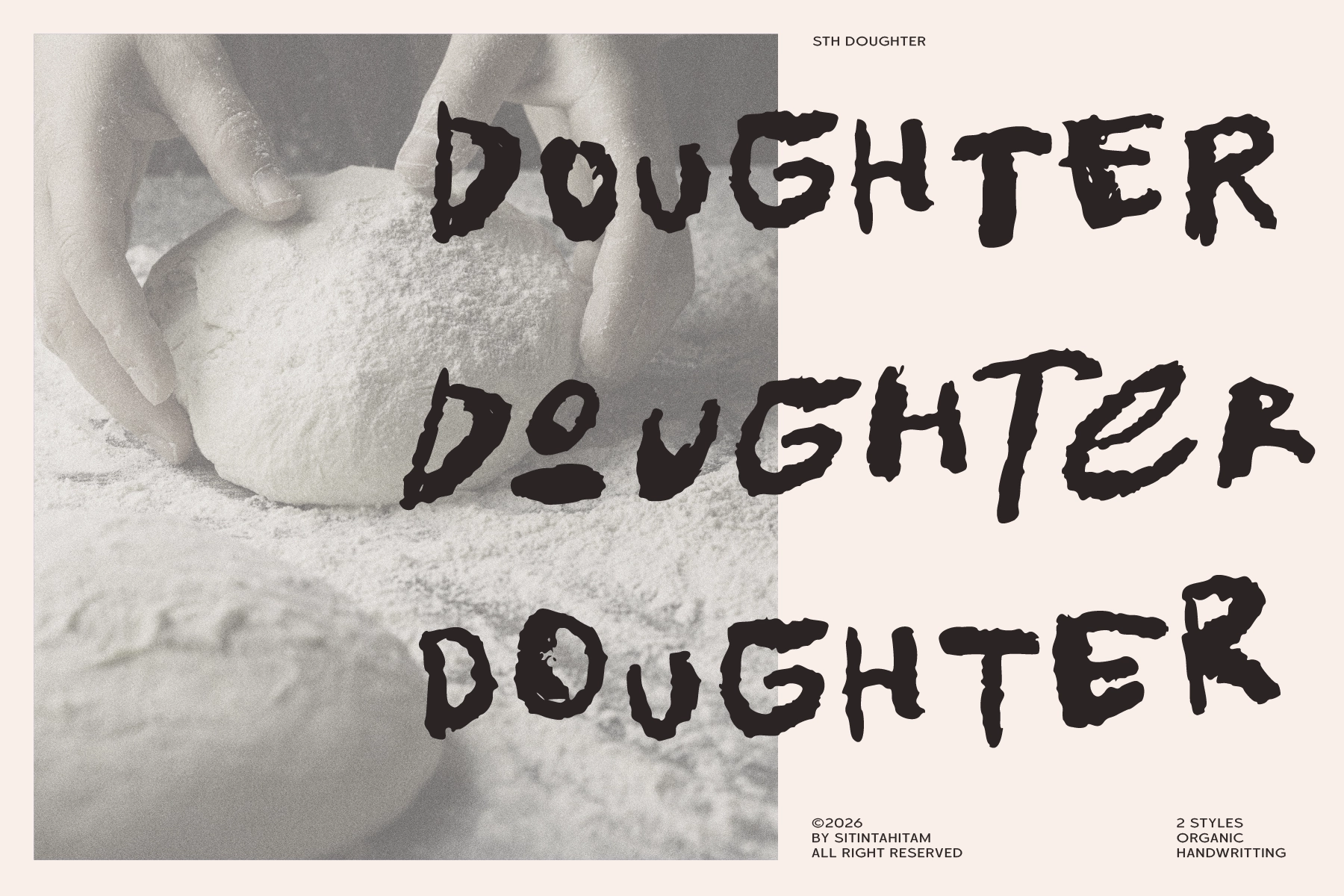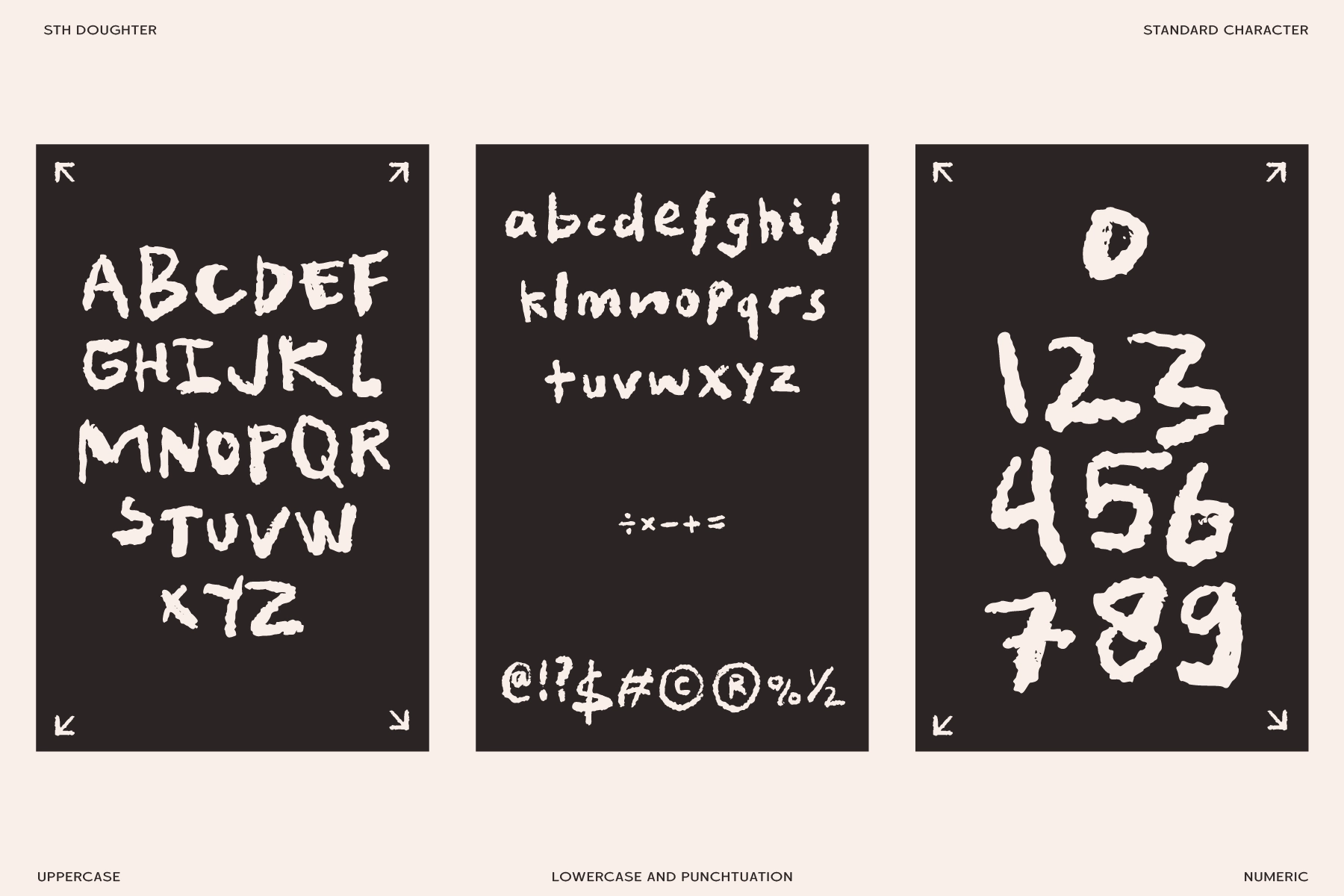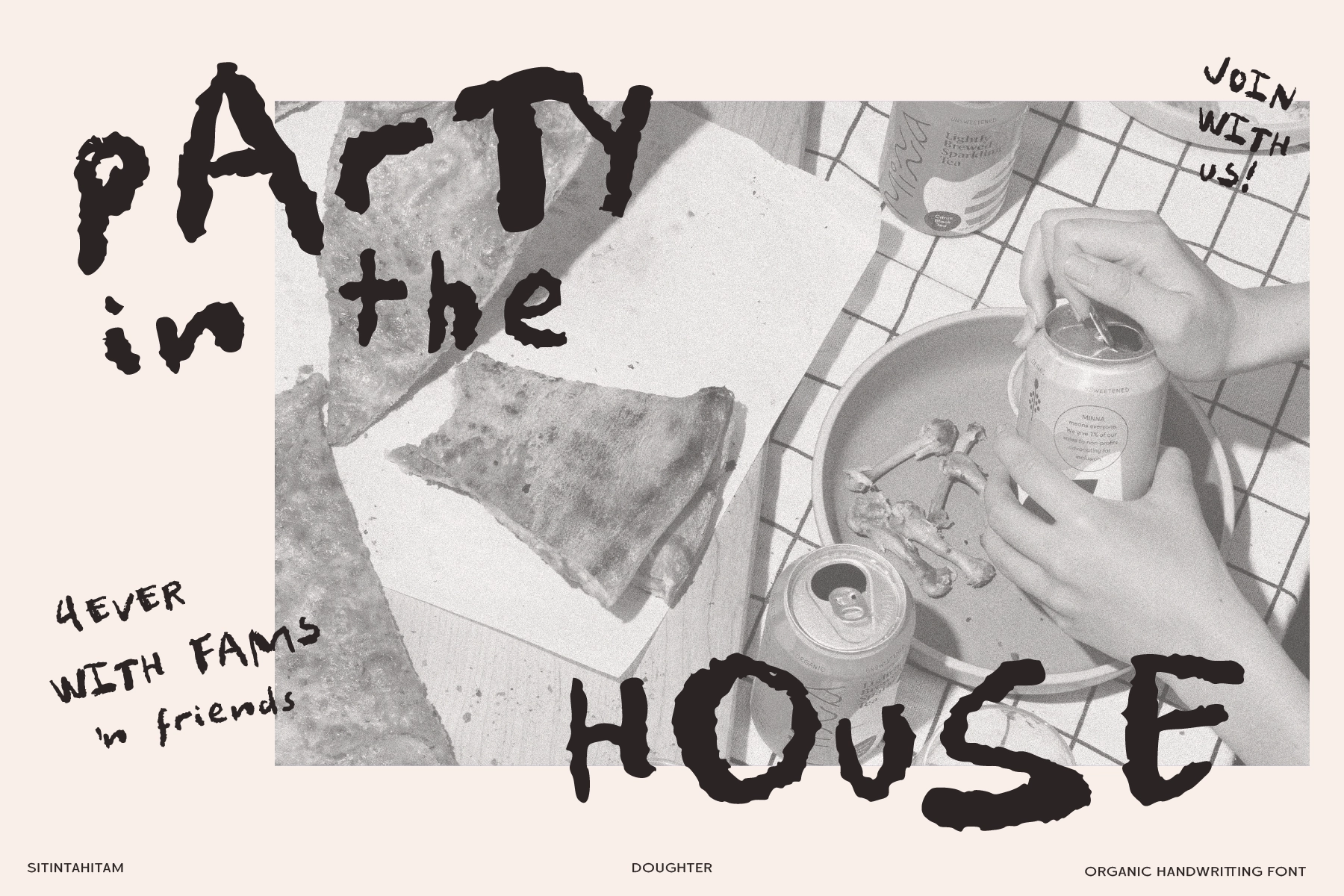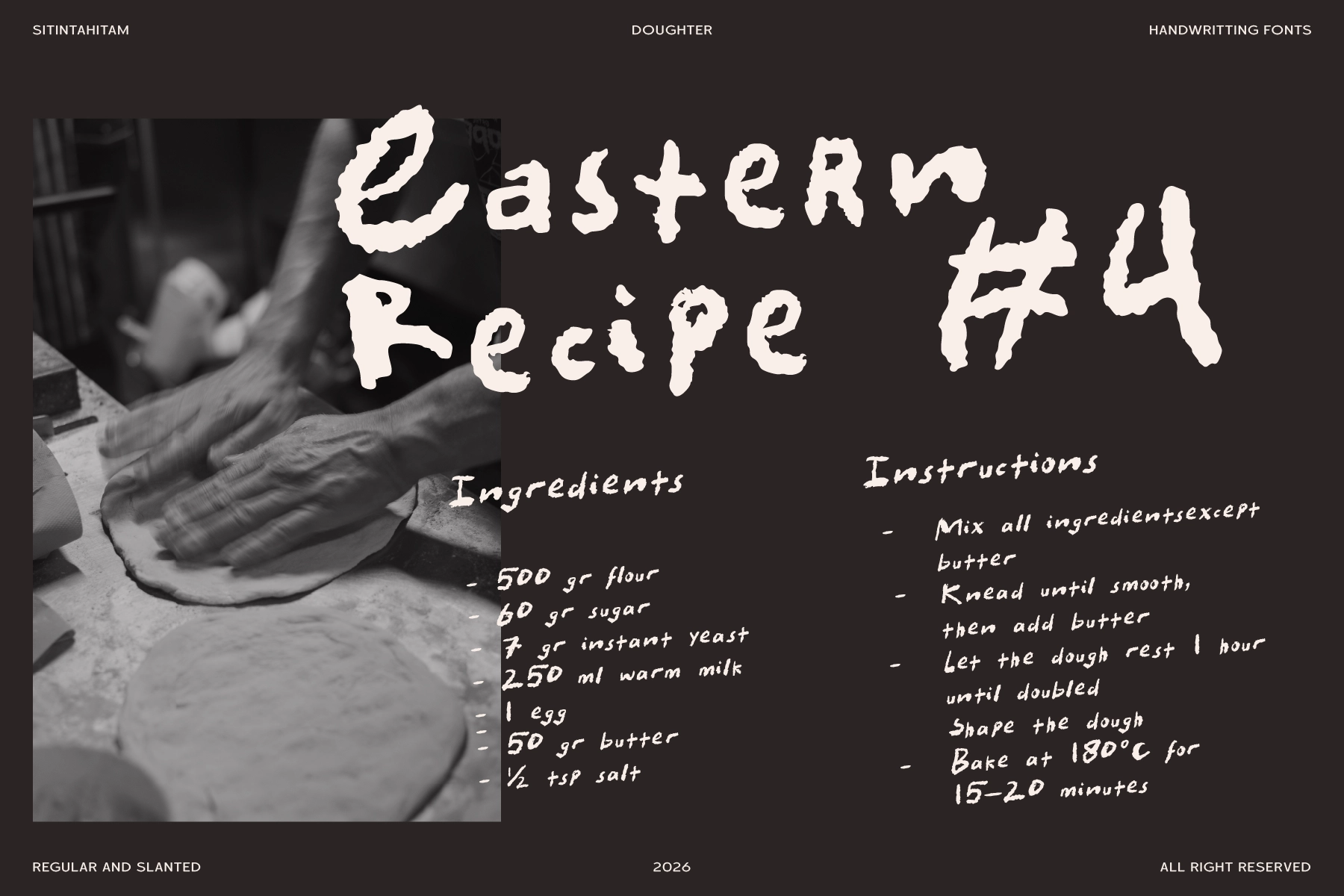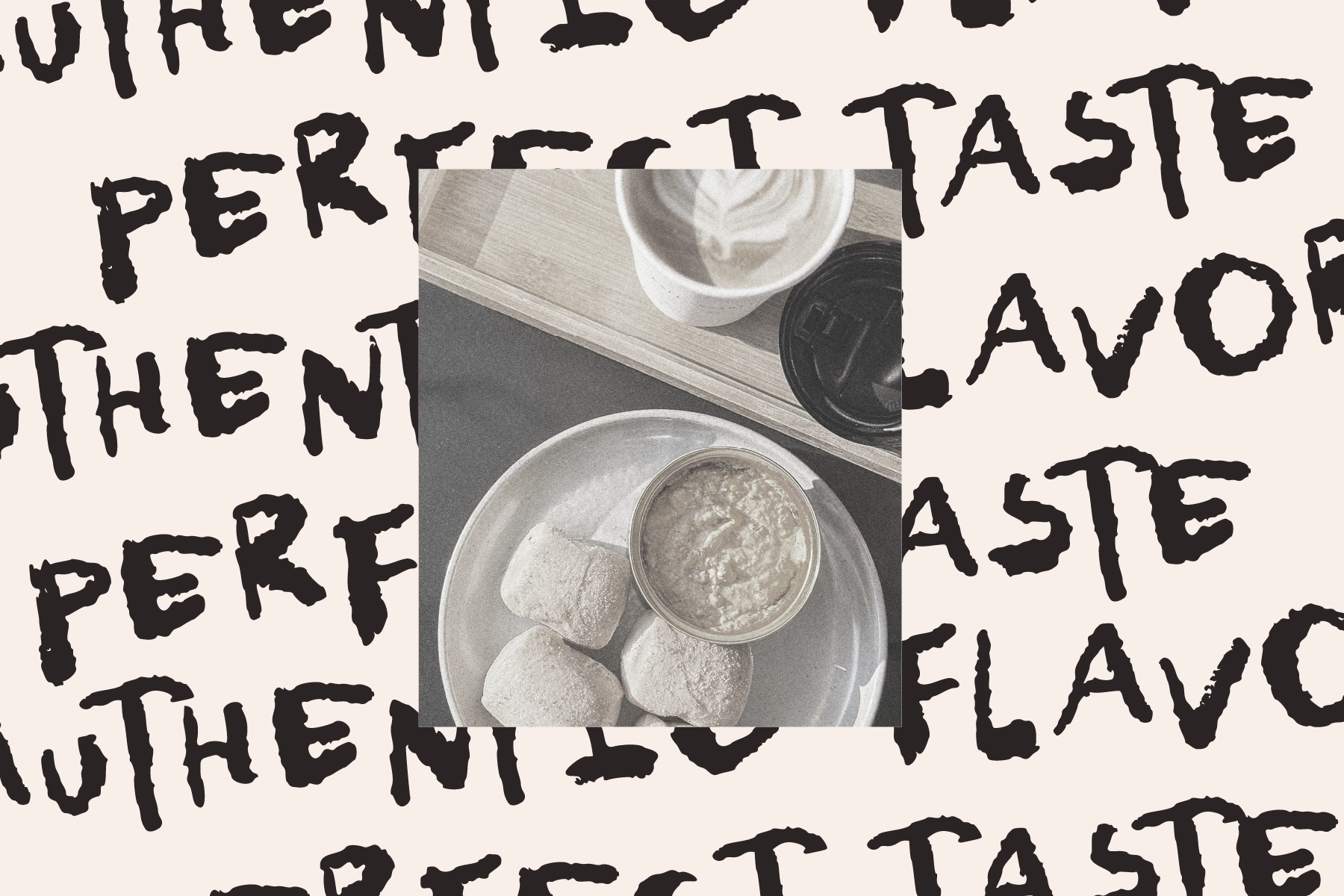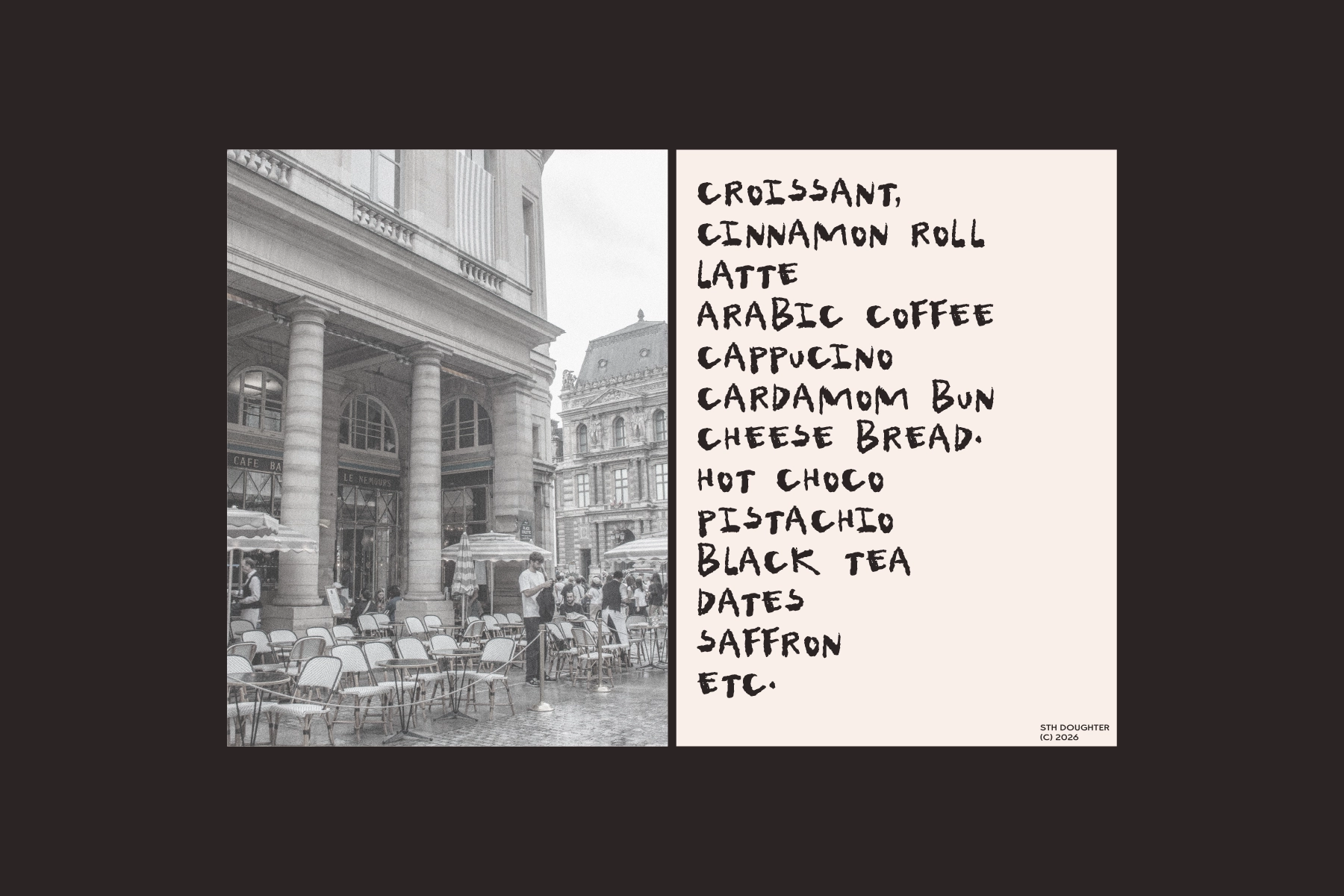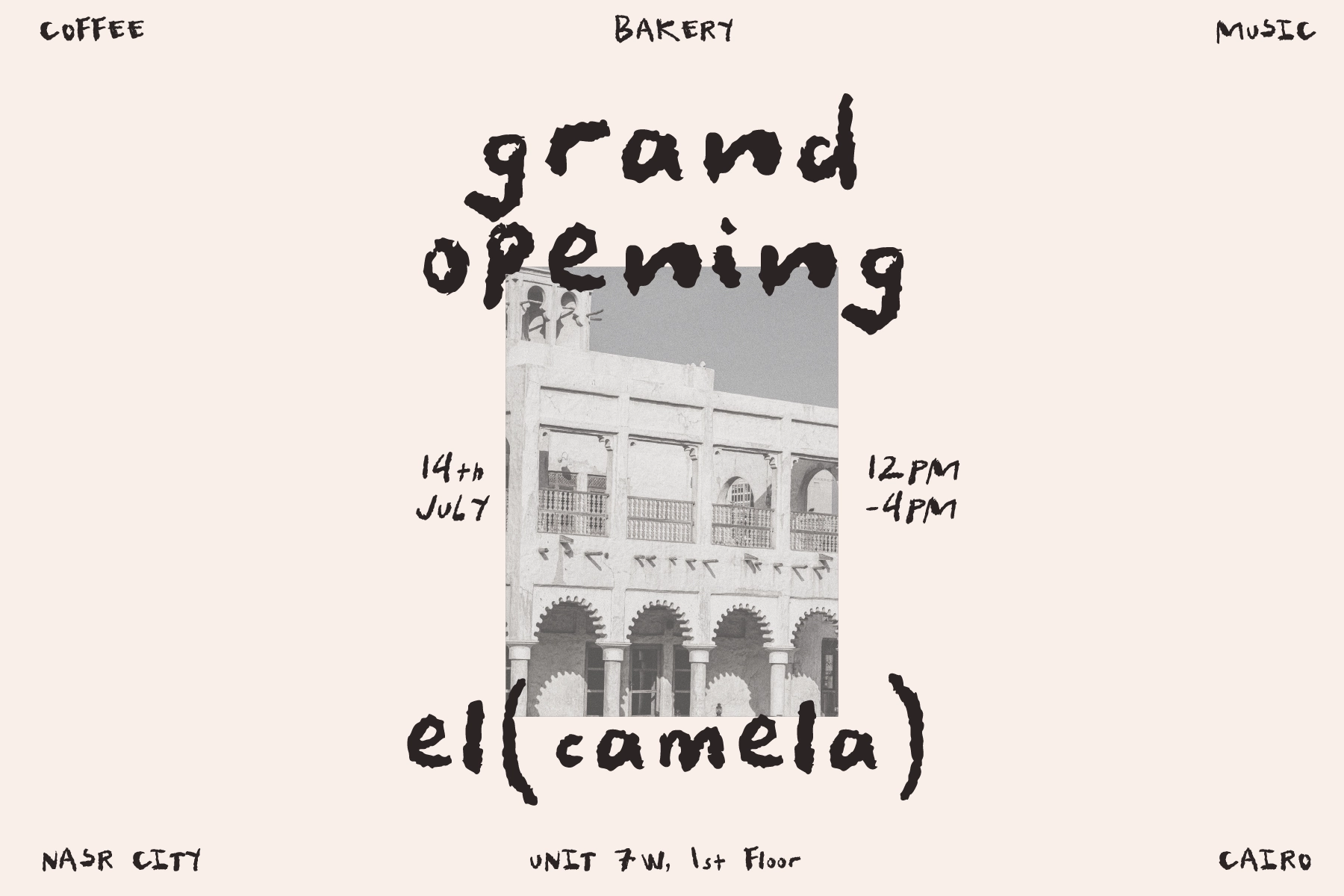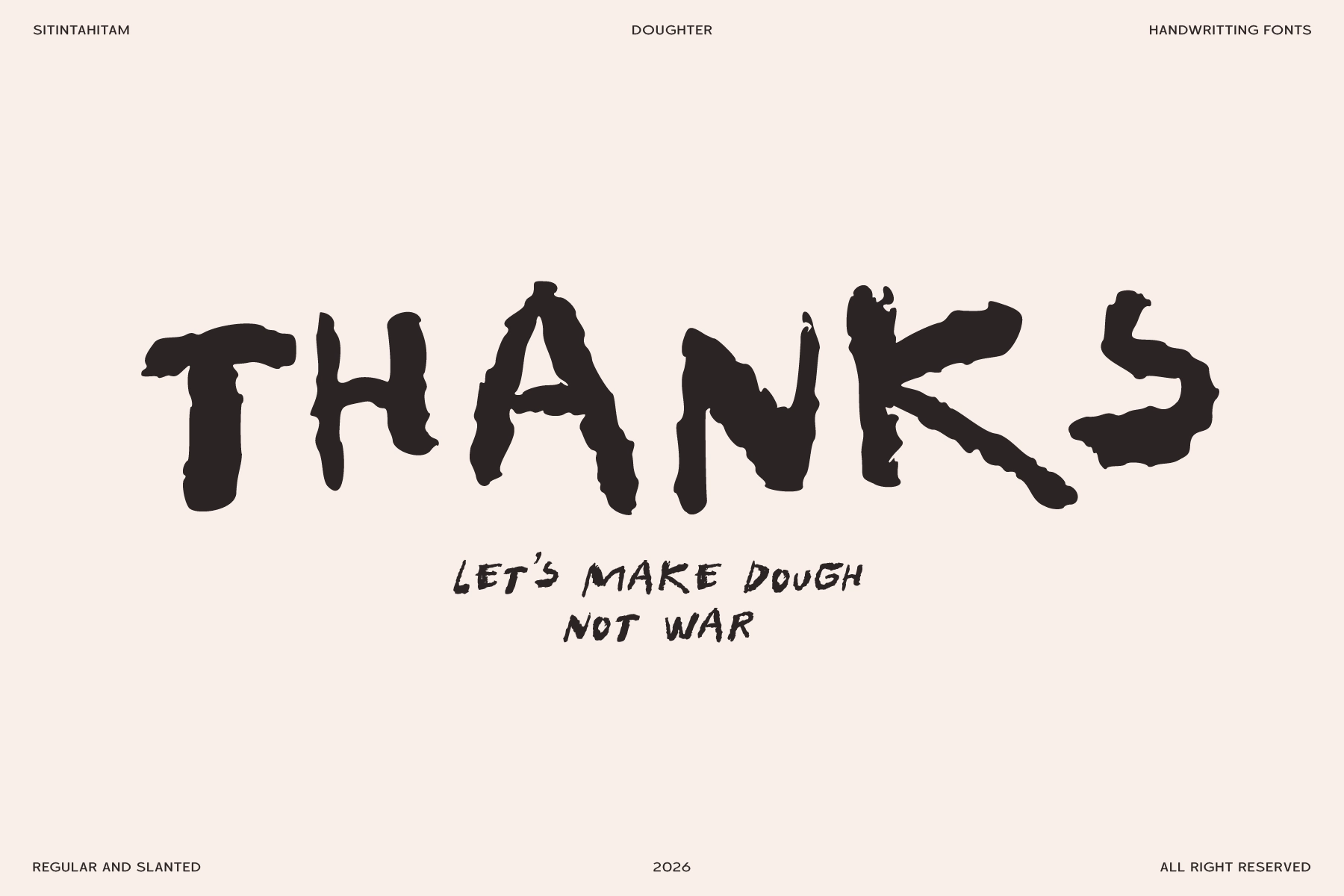
STH Doughter - Rough Handwritten Font
This handwritten font has raw brush-like strokes, uneven edges, and a flour-dusted texture that gives every word an unpolished handmade character. Its rough shapes are casual, expressive, and full of movement, with a warm artisan look suited for food, craft, and indie branding.
STH Doughter works well for bakery branding, café menus, recipe cards, food packaging, farmers market labels, restaurant boards, coffee shop posters, handmade product tags, zines, editorial accents, social media graphics, event flyers, stickers, and merch prints. The Regular and Slanted styles give the lettering extra range, from straight-up rustic charm to slightly unruly handwritten energy.
• 2 styles: Regular, Slanted
• Numbers & punctuation